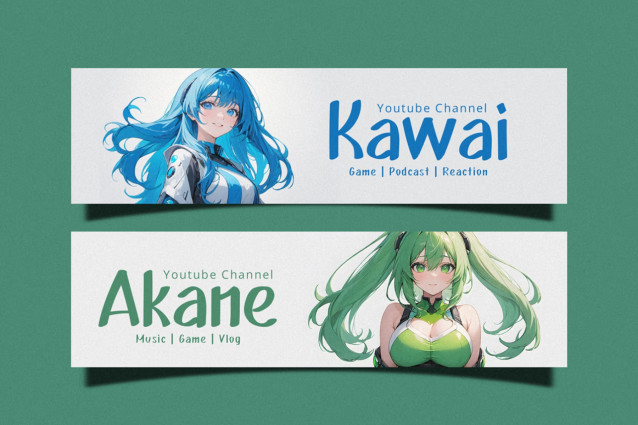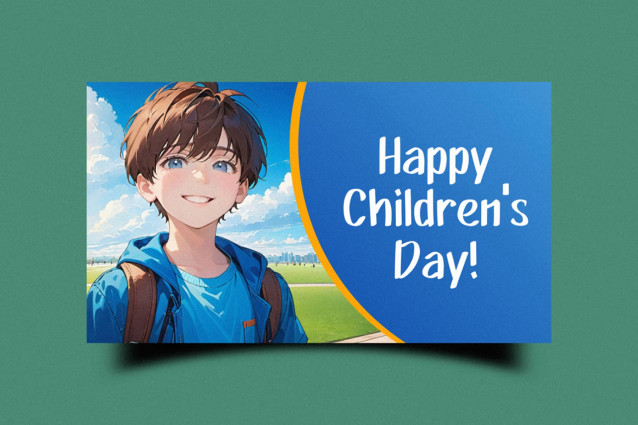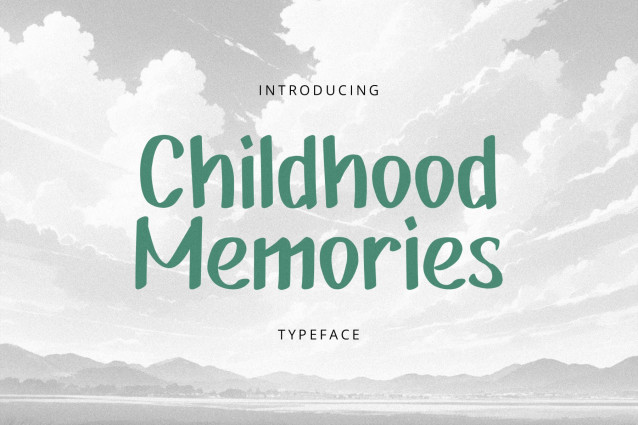
Childhood Memories Font
Childhood Memories is a rough sketch playful and fun font that specially crafted for kids, Boys, Kindergarten Birthday, Cartoon, and Comic purposes. Made manually by hand so it looks a touch of craft